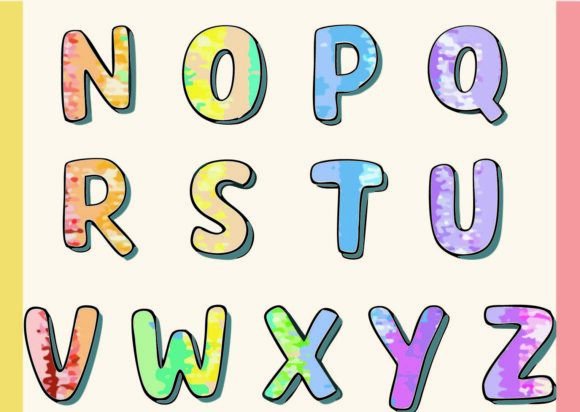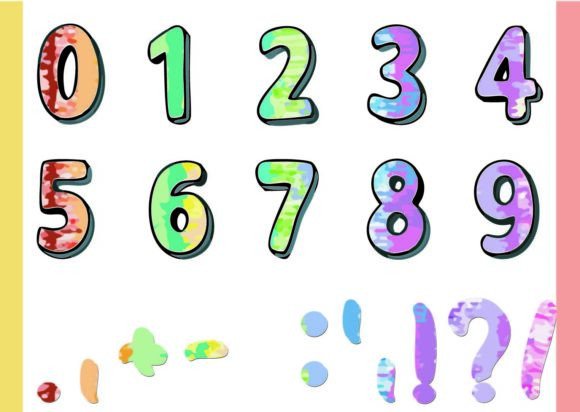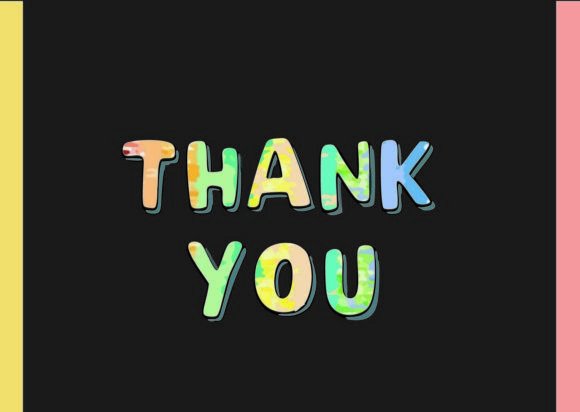
Introducing Diana Font: A Colorful Heaven for Designers and Crafters
Are you tired of using the same old fonts in your designs? Look no further than Diana Font, a stunning color font that is sure to take your typography to the next level. In this article, we’ll dive into the world of Diana Font, exploring its unique features, compatibility, and uses, making it a must-have for designers and crafters alike.
What is Diana Font?
Diana Font is a color font, also known as a chromatic font, that boasts a unique characteristic: every single glyph has a different set of colors. This means that each letter, number, and symbol in the font is a miniature masterpiece, with its own distinct color palette. The result is a visually striking and engaging typography that adds a new level of creativity to your designs.
A Closer Look at the Glyphs
If you take a closer look at the glyphs in Diana Font, you’ll notice that each one is made up of complex sets of paths and connections. These intricate details make each glyph look like a typographic painting, adding an extra layer of depth and visual interest to your designs. Whether you’re creating a logo, a poster, or a digital graphic, Diana Font is sure to make your work stand out.
Uses for Diana Font
So, what can you use Diana Font for? The possibilities are endless! Here are a few ideas to get you started:
- Create stunning logos and branding materials that showcase your company’s personality and style.
- Design eye-catching posters, flyers, and brochures that grab attention and leave a lasting impression.
- Add a pop of color and creativity to your digital graphics, such as social media graphics and email newsletters.
- Use Diana Font to create beautiful and unique craft projects, such as handmade cards and scrapbooking pages.
Tips and Tricks for Using Diana Font
To get the most out of Diana Font, here are a few tips and tricks to keep in mind:
- Experiment with different color combinations and pairings to create unique and striking effects.
- Use Diana Font in combination with other fonts and design elements to add depth and visual interest to your designs.
- Don’t be afraid to get creative and try new things – Diana Font is all about experimentation and self-expression!